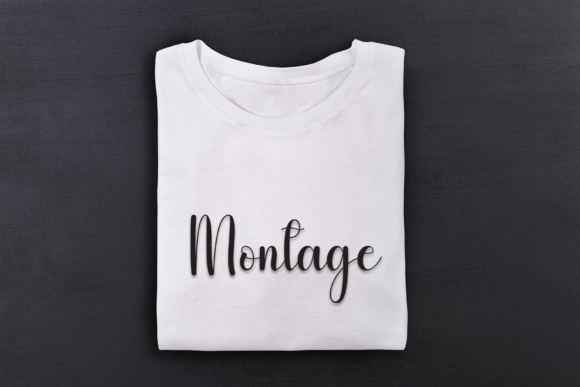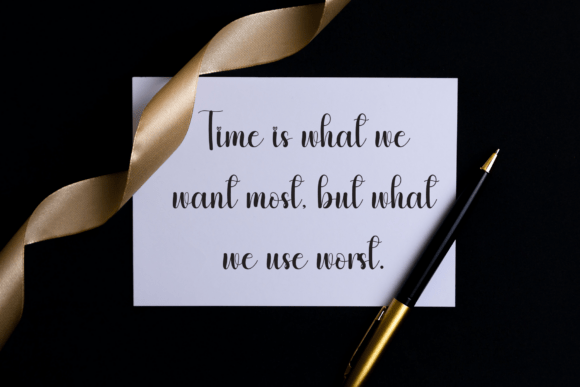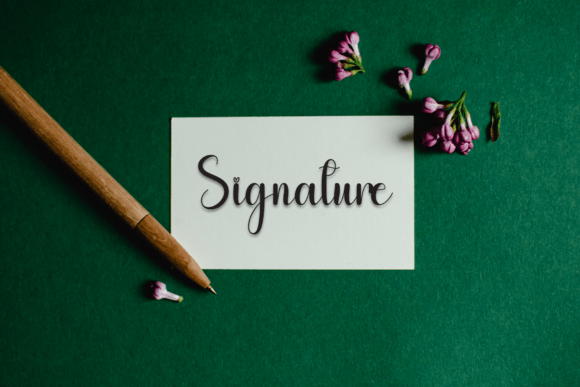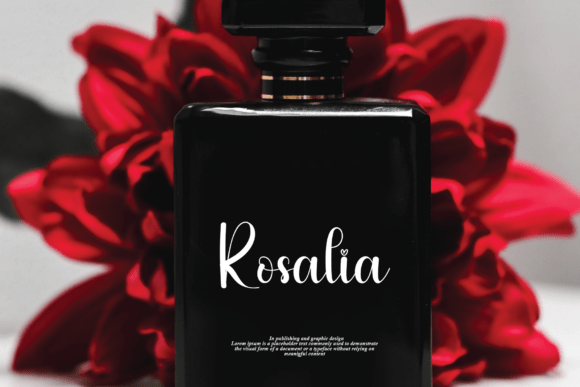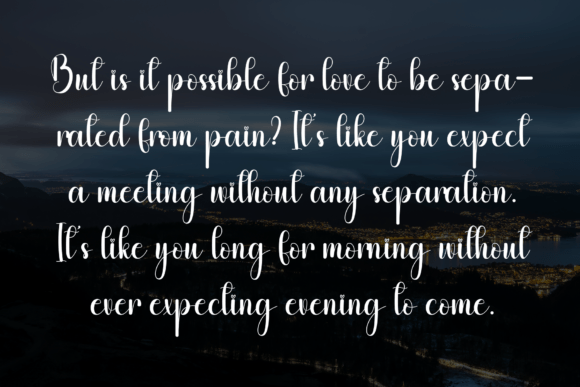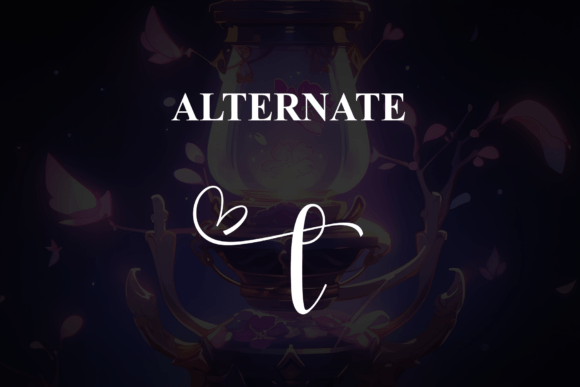
Introduction to Magical Element Font
Have you ever stumbled upon a font that transports you to a whimsical world of wonder and magic? For designers, discovering the perfect font can be a game-changer, elevating a project from ordinary to extraordinary. I still remember the moment I came across the Magical Element Font – it was love at first sight! Its delicate, handwritten script sparkled with charm and elegance, leaving me spellbound.
As a designer, I can attest to the value of having a versatile and enchanting font like Magical Element Font in your toolkit. With its fluid, expressive letterforms and whimsical heart accents, it’s perfect for adding a touch of magic to fantasy-themed designs, wedding invitations, greeting cards, and more. Whether you’re working on a creative project that requires a high-quality design resource or simply looking for a free download to add some sparkle to your next project, Magical Element Font is sure to captivate your audience.
Key Features of Magical Element Font
- High-quality design: The Magical Element Font is a premium design resource featuring intricate, magical elements perfect for a creative project.
- Transparent background: Each element features a transparent background, allowing for easy customization and placement within your design.
- High-resolution graphics: The Magical Element Font is designed at 300 DPI, ensuring crisp and clear graphics in any size or resolution.
- Perfect for creative projects: The Magical Element Font is ideal for use in creative projects, such as illustrations, graphics, and digital art.
- Easy to use: With a simple and intuitive design, the Magical Element Font is easy to use and customize for any design project.
Honest Review: Magical Element Font
As a designer, I’m always on the lookout for unique and high-quality design resources. I recently stumbled upon the Magical Element Font, and I’m excited to share my honest review with you.
What works well: ✨ The Magical Element Font is incredibly versatile and can be used for a wide range of creative projects, from fantasy novels to video game titles. The font is also available for free download, making it an excellent resource for designers on a budget. I also appreciate the transparent background, which allows for seamless integration with other design elements.
What doesn’t: ⚠️ While the Magical Element Font is visually stunning, it can be quite bold and overpowering in certain contexts. I also wish the font family was more extensive, as the current offering is limited to a single style.
Overall impression: The Magical Element Font is a fantastic addition to any designer’s toolkit, especially for creative projects that require a touch of magic. While it may not be perfect, its strengths far outweigh its limitations, making it a worthwhile download.
- Limited font family
- Can be overpowering in certain contexts
Tips for Getting the Most Out of the Magical Element Font
Use the Magical Element Font on a transparent background to create a unique and eye-catching design.
Experiment with different font sizes and styles to add depth and interest to your design.
Combine the Magical Element Font with other design resources, such as graphics and images, to create a cohesive and high-quality design.
The Magical Element Font is perfect for creating designs for:
Book covers
Posters
Business cards
Wedding invitations
And more!